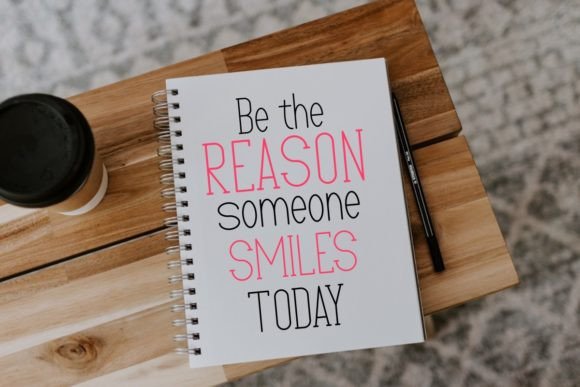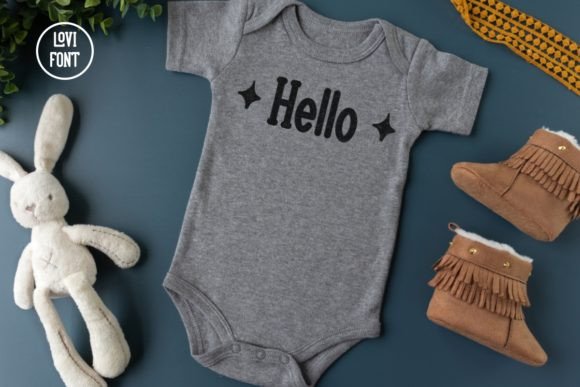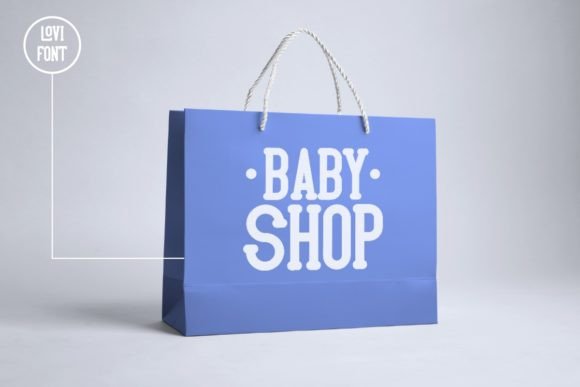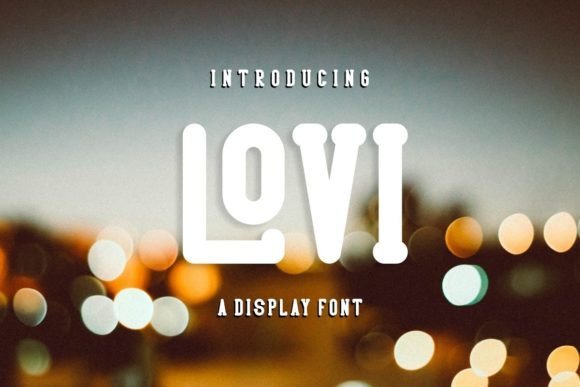
Introduction to Lovi Font
LOVI display font is a vibrant and playful typeface designed to bring a sense of excitement to any design project.
With its uniqueness, Lovi fun captures attention and adds a touch of whimsy to your designs The font’s cheerfulness makes it suitable for a variety of design themes, such as children’s products, playful branding, and invitations.
Key Features of Lovi Font
Why Choose Lovi Font?